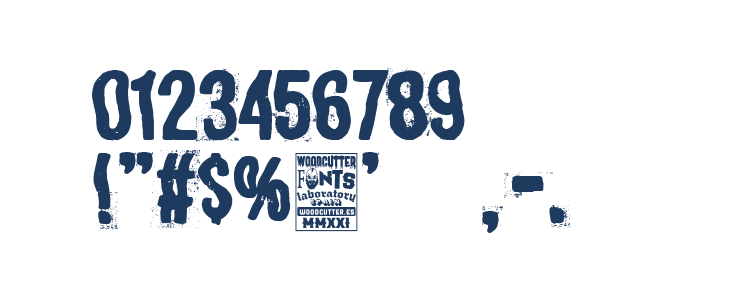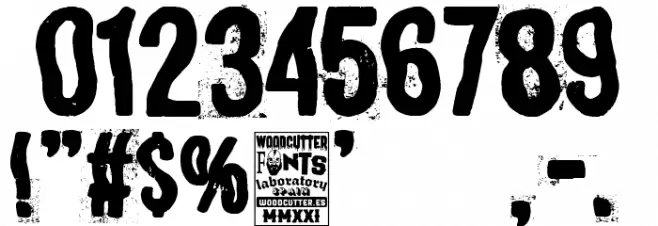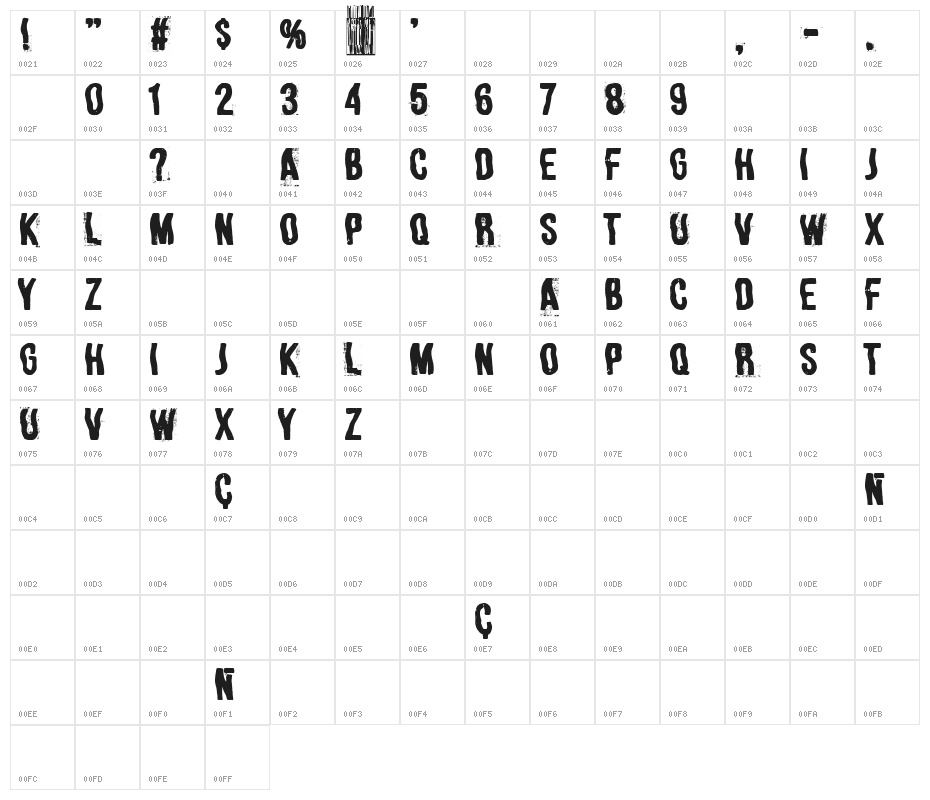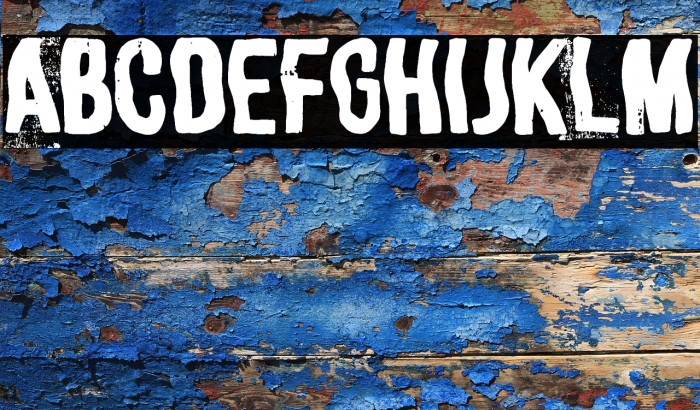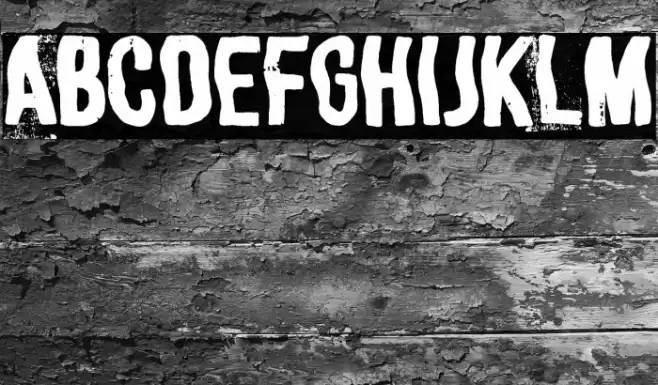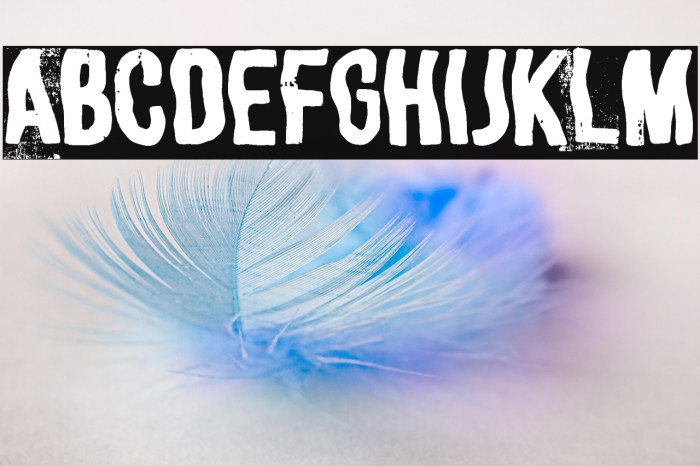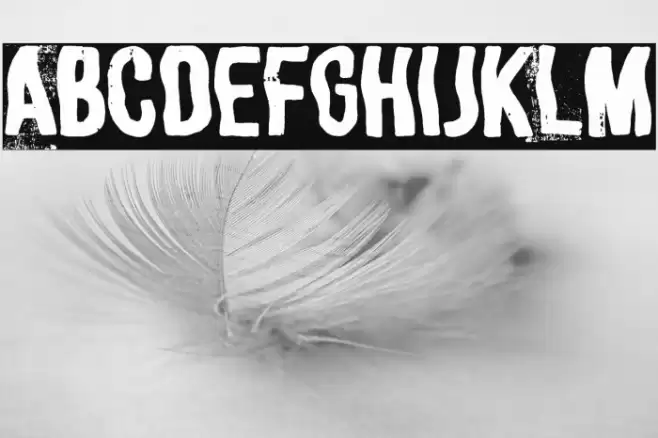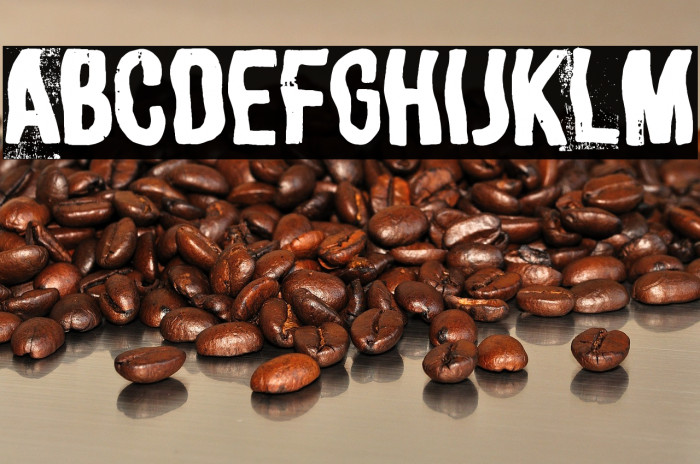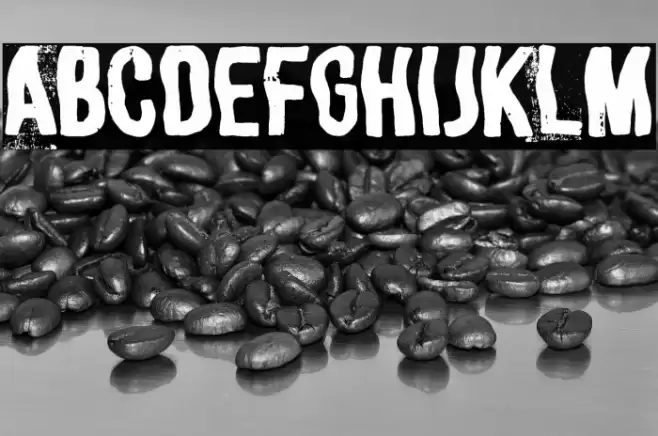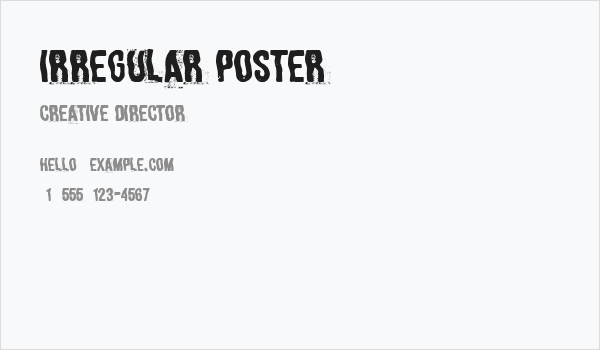
Irregular Poster Font
Irregular Poster Description
This font features a bold and rugged design, characterized by its distressed and textured appearance. Each character appears as if it has been stamped or printed with a rough, uneven surface, giving it a unique, handcrafted feel. The uppercase and lowercase letters maintain a consistent style, with thick strokes and irregular edges that add to its rustic charm. The numbers and special characters follow the same aesthetic, ensuring a cohesive look across all elements. This font's distinctive style makes it stand out, perfect for projects that require a bold and eye-catching typeface.
| Proposed Projects | Ideal for posters, album covers, branding, and any design needing a bold, rustic touch. |